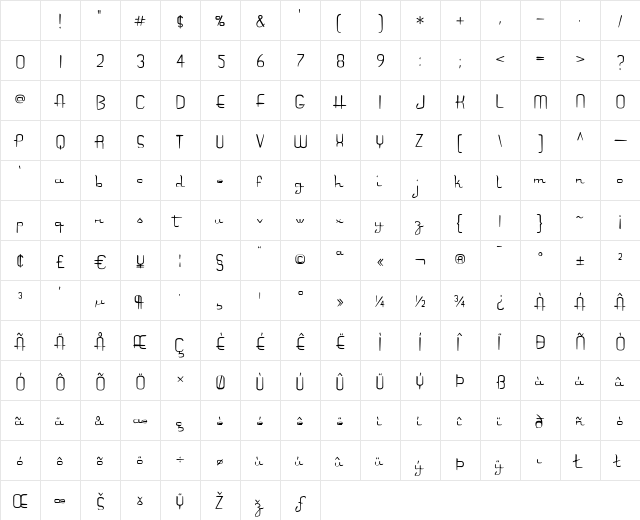
Complete AlsMotor-Inn Regular glyph index. Displaying only characters natively supported by AlsMotor-Inn Regular font.
AlsMotor-Inn is a composed and adaptable typeface that performs quietly and consistently across a wide range of design contexts.